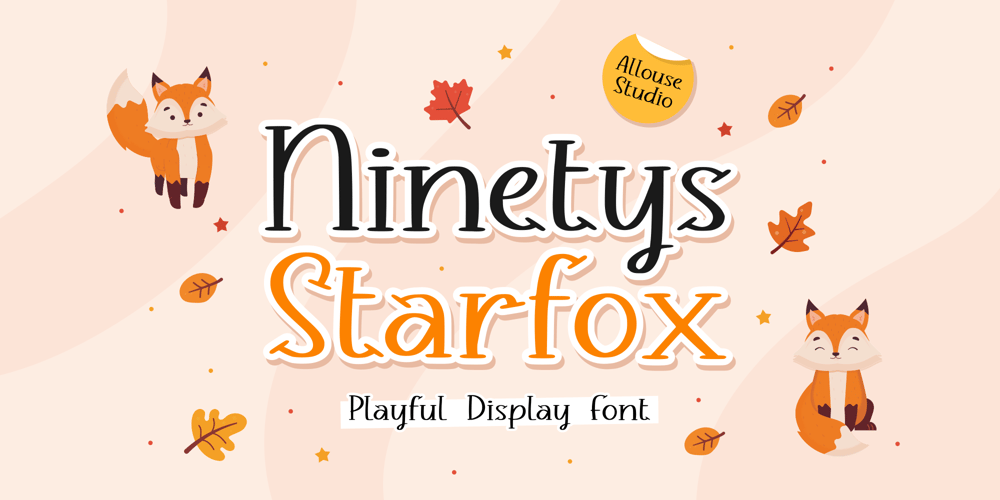
Ninetys Starfox
Ninetys Starfox font
Ninetys Starfox Font Family was designed by Fachrizal Yusuf and published by Allouse Studio. Ninetys Starfox contains 1 styles and family package options. Proudly Presenting, Ninety Starfox A Playful DIsplay Font.Ninety Starfox is perfect for any titles, logo, product packaging, branding project, megazine, social media, wedding, or just used to express words above the background.Ninety Starfox also come with Multi-Lingual Support.Enjoy the font, feel free to comment or feedback, send me PM or email.